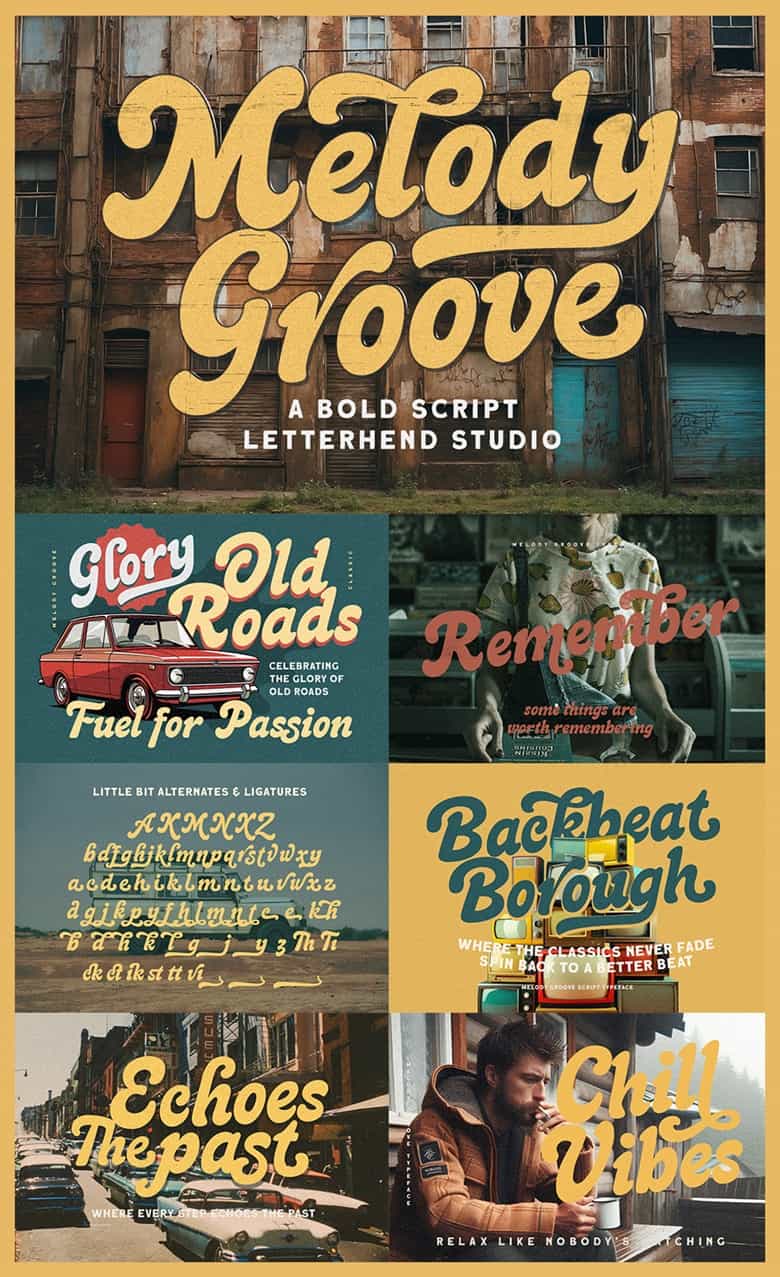
Melody Groove is a bold font in script style that have a one of a kind retro look mixed with the contemporary. With its distinctive, sinuous lines and an eye-catching sculptural form, the style conveys inviting nostalgia of a old fashioned city atmosphere.